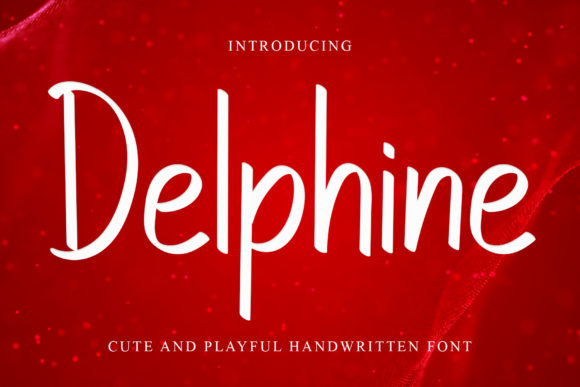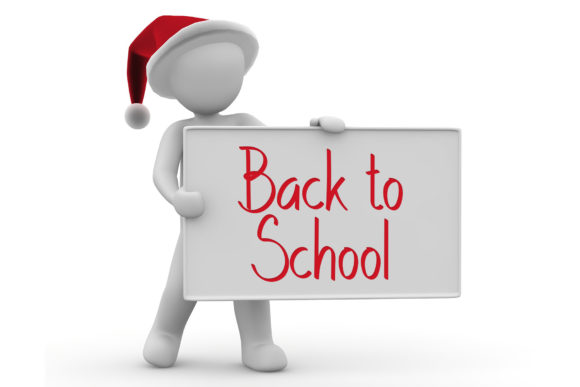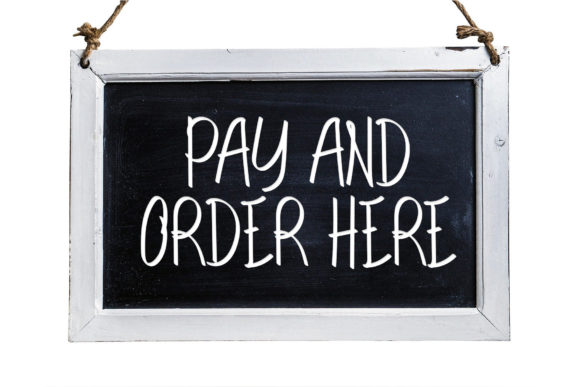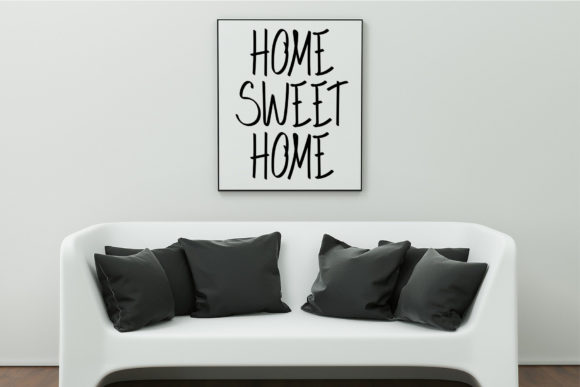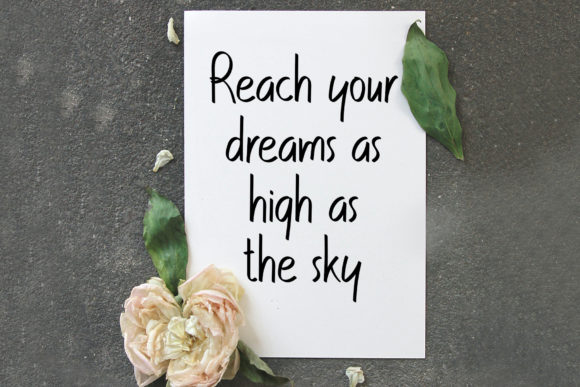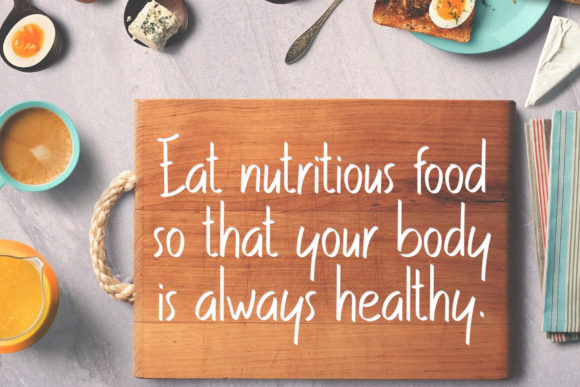
Delphine Font
About Delphine Font
“Delphine” is a playful and refined script font that exudes sophistication and elegance. With its stylish alternates and ligatures, this font is the perfect choice for a variety of design projects. Whether you’re creating logos, branding materials, invitations, stationery, or any other design that requires a touch of charm, “Delphine” will bring a delightful and elegant vibe to your work.
The playful nature of “Delphine” is evident in its beautifully crafted letterforms. The flowing curves, unique swashes, and stylish details create a sense of whimsy and personality. The font’s refined style adds a touch of sophistication and class, making it an excellent option for boutique brands, creative projects, and playful designs.
The stylish alternates and ligatures in “Delphine” allow you to add variety and uniqueness to your designs. By exploring different letter combinations and stylistic options, you can create custom typography that perfectly reflects your project’s aesthetic. These additional characters provide endless possibilities for creating eye-catching headlines, engaging logos, or personalized invitations.
“Delphine” is versatile and adaptable, making it suitable for various design contexts. Its playful and refined appearance adds a touch of elegance to packaging, social media graphics, editorial layouts, and more. It also complements event invitations, greeting cards, and children’s book illustrations, bringing a delightful and whimsical feel to these designs.
The font’s attention to detail and carefully crafted letterforms make it a standout choice for projects that aim to convey both sophistication and playfulness. Its balanced design ensures readability, while its charming elements add personality and character to your typography.
Whether you’re a professional designer or an enthusiastic DIY creator, “Delphine” is a valuable addition to your font library. Its playful and refined style, combined with its stylish alternates and ligatures, allows you to create visually appealing and engaging designs. Let “Delphine” be your go-to font for projects that require a touch of charm and elegance.
In summary, “Delphine” is a playful and refined script font that exudes sophistication and elegance. Its stylish alternates and ligatures offer versatility and customization options, making it a perfect match for a wide range of design projects. With its charming letterforms and attention to detail, “Delphine” brings a delightful and elegant vibe to your typography and adds a touch of whimsy to your creations.